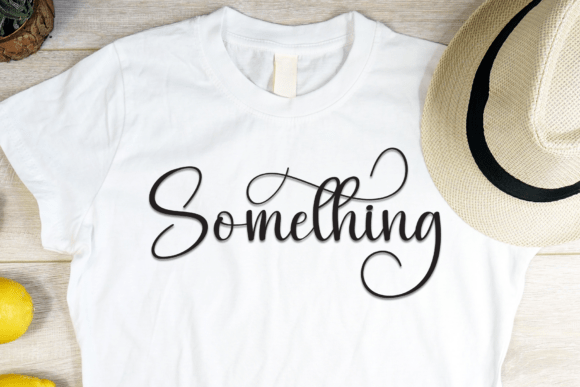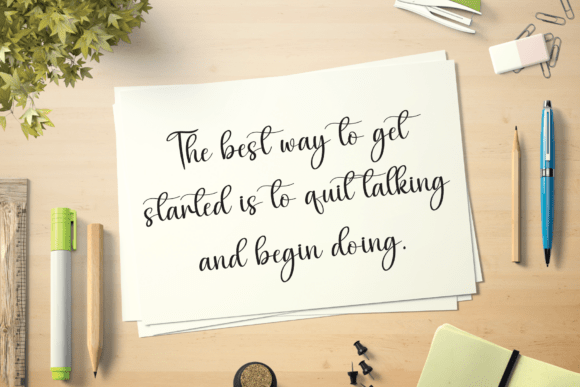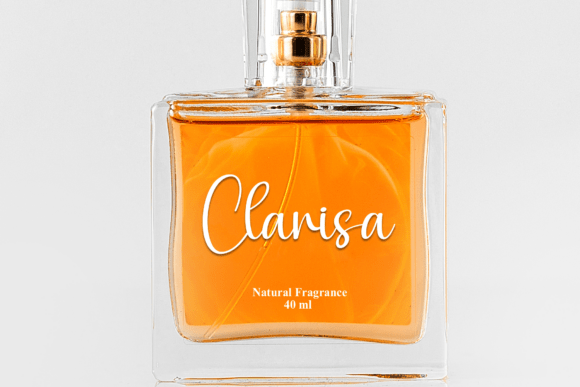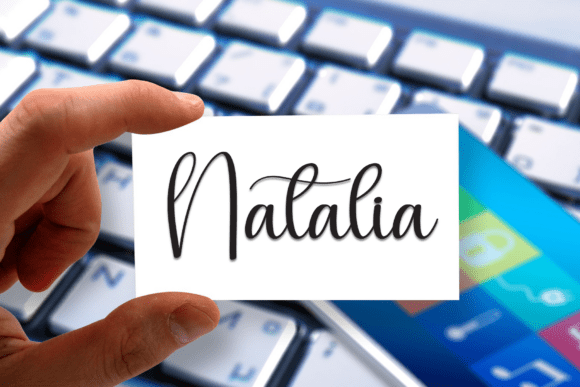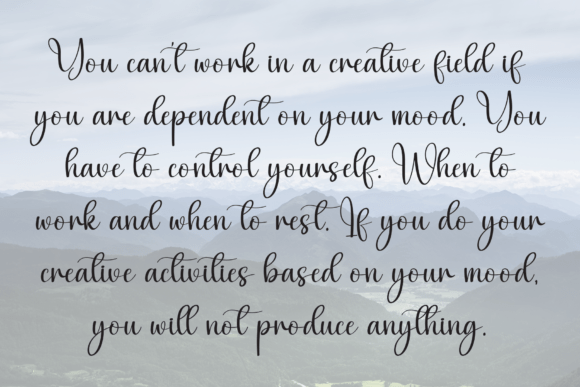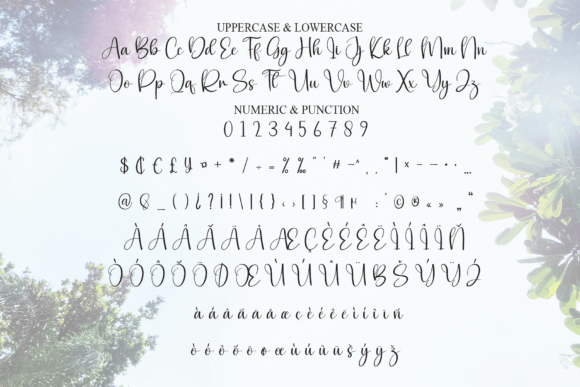
Introduction to Masterday Font
Do you remember the thrill of creating your first handmade card for a loved one? The hours spent perfecting the handwriting, adding a dash of color, and making it truly special? For designers, that same feeling can be achieved with the right font. Enter Masterday Font, a stylish handwritten script font that captures elegance and playfulness in every stroke.
With Masterday Font, you can add a personal, charming touch to invitations, branding, and social media. Its flowing curves and natural rhythm make it a valuable design resource for any creative project. Whether you’re working on a high-end branding project or a simple social media post, Masterday Font is the perfect addition to elevate your design to the next level. And the best part? It’s available for free download, complete with a transparent background, making it easy to incorporate into your design.
As a designer, you’re always on the lookout for high-quality design resources that can help you create stunning visuals. Masterday Font is a game-changer, offering a unique and sophisticated look that’s sure to impress. So why settle for ordinary when you can add a touch of elegance and creativity to your design with Masterday Font?
Key Features of Masterday Font
- High-quality, professional font suitable for creative projects and design resources.
- Unique characteristics include a modern, clean design and a wide range of font styles and weights.
- Perfect for use in logos, branding materials, and other design projects where a high-quality font is essential.
Honest Review: Masterday Font
As a designer, I’m always on the lookout for high-quality design resources to elevate my creative projects. Recently, I stumbled upon the Masterday Font, and I’m excited to share my honest review.
What works well: ✨ The Masterday Font is a versatile font that’s perfect for modern designs. Its sleek and clean design makes it an excellent choice for logos, brochures, and even web design. The font is available for free download, making it a valuable addition to any designer’s toolkit. Additionally, the transparent background option allows for seamless integration with other design elements.
What’s not so great: ⚠️ While the Masterday Font is a great design resource, it’s not without its limitations. The font selection is relatively small, and the characters may not be as extensive as some other fonts. Additionally, the font may not be suitable for older systems or devices with limited font support.
Overall, I’m impressed with the Masterday Font’s high quality and versatility. While it may have some limitations, it’s a valuable design resource for any creative project. Whether you’re a seasoned designer or just starting out, the Masterday Font is definitely worth checking out.
- Perfect for modern designs
Masterday Font
Tips for Getting the Most Out of Masterday Font
Use the Masterday Font with a transparent background to create a modern and sleek design. Experiment with different font sizes and styles to add depth and visual interest to your project. Use the font in combination with other design elements, such as images and shapes, to create a high-quality and engaging design.
The Masterday Font is suitable for a variety of creative projects, including social media graphics, presentations, infographics, and marketing materials. It’s also a great design resource for creating high-quality graphics and visuals for your business or personal projects.